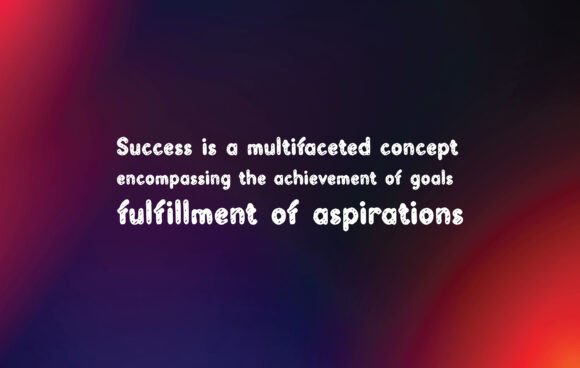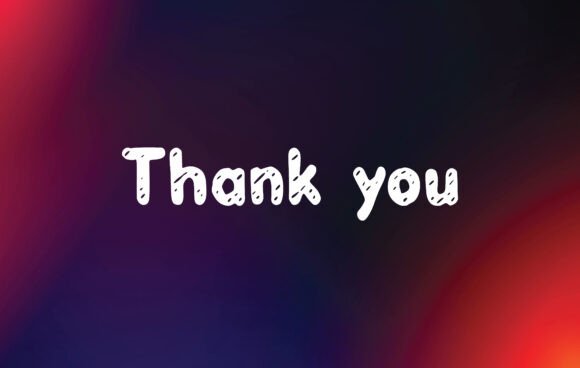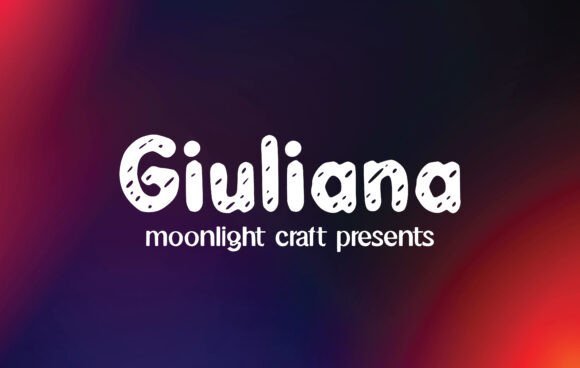
Introduction to Giuliana Font
Giuliana is a lovely and beautiful handwritten font.
Key Features of Giuliana Font
Why Choose Giuliana Font?
Giuliana Font offers exceptional quality and versatility, making it a valuable addition to your design toolkit. Whether you’re creating for personal projects or commercial use, Giuliana Font delivers professional results.